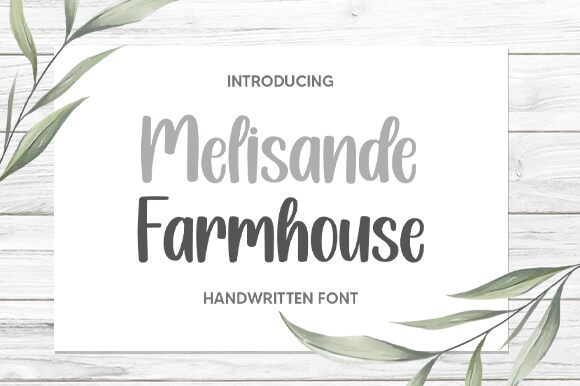
Melisande Farmhouse
Melisande Farmhouse is a delightful semi-bold typeface designed by Aldi Raya Pradipta. Its charming handwritten style and semi-condensed width make it perfect for a wide range of projects, from playful logos to cute social media graphics. The font's rustic farmhouse vibe lends itself well to branding for small businesses, especially those in the food, beauty or lifestyle industries. Melisande Farmhouse is also great for creating greeting cards, invitations, and other paper-based designs that require a touch of whimsy. With its unique personality and versatility, Melisande Farmhouse is sure to add a touch of charm to any project!